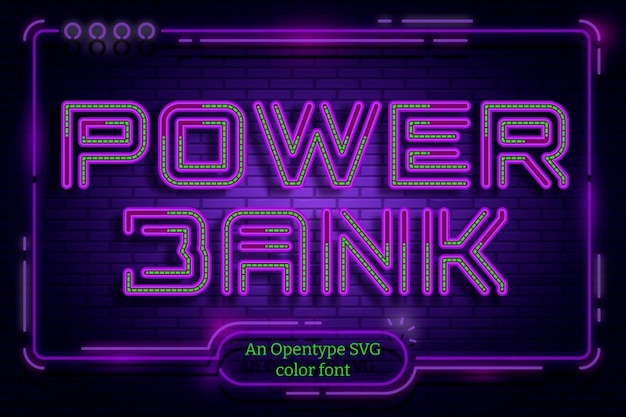
Power Bank
Power Bank Font
Power Bank font is a futuristic marvel, its characters outlined in electrifying neon, giving your text a dynamic and decorative edge. Ideal for projects that demand a cutting-edge, visually captivating aesthetic. Power Bank effortlessly blends futuristic vibes with neon artistry, making your words an electrifying and attention-grabbing spectacle.